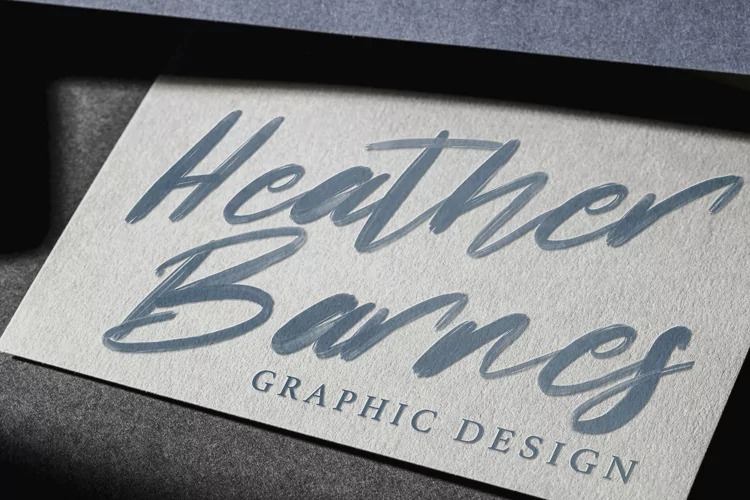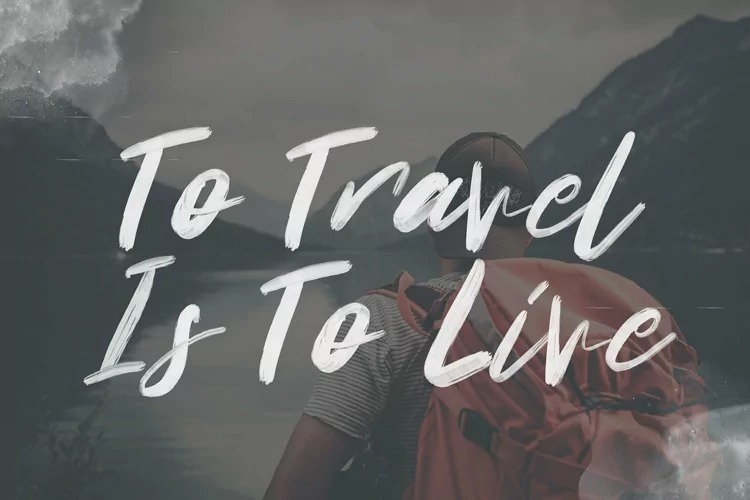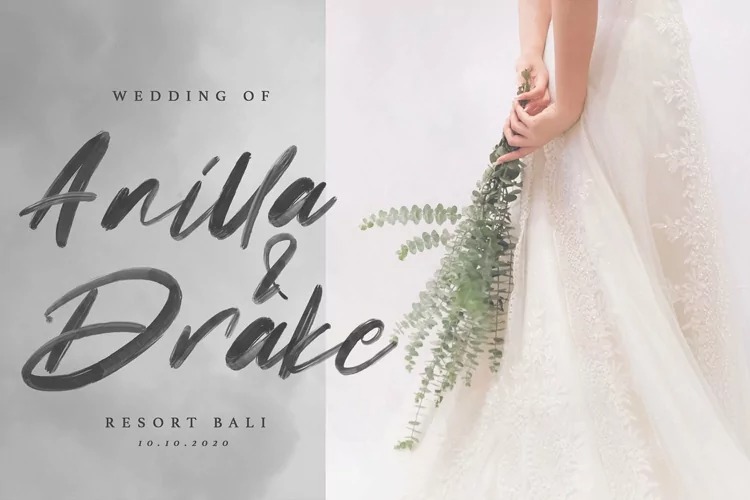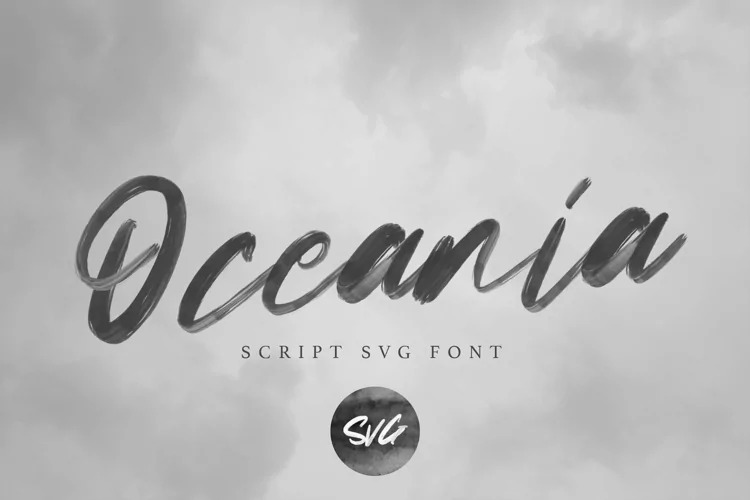
Oceania Font
Oceania Brush Font
This font is a great textured brush hand lettering font created by Vunira with rough brush stroke, slant and fun character. No matter the topic, this font will be an incredibly asset to your fonts’ library, as it has the potential to elevate any creation.